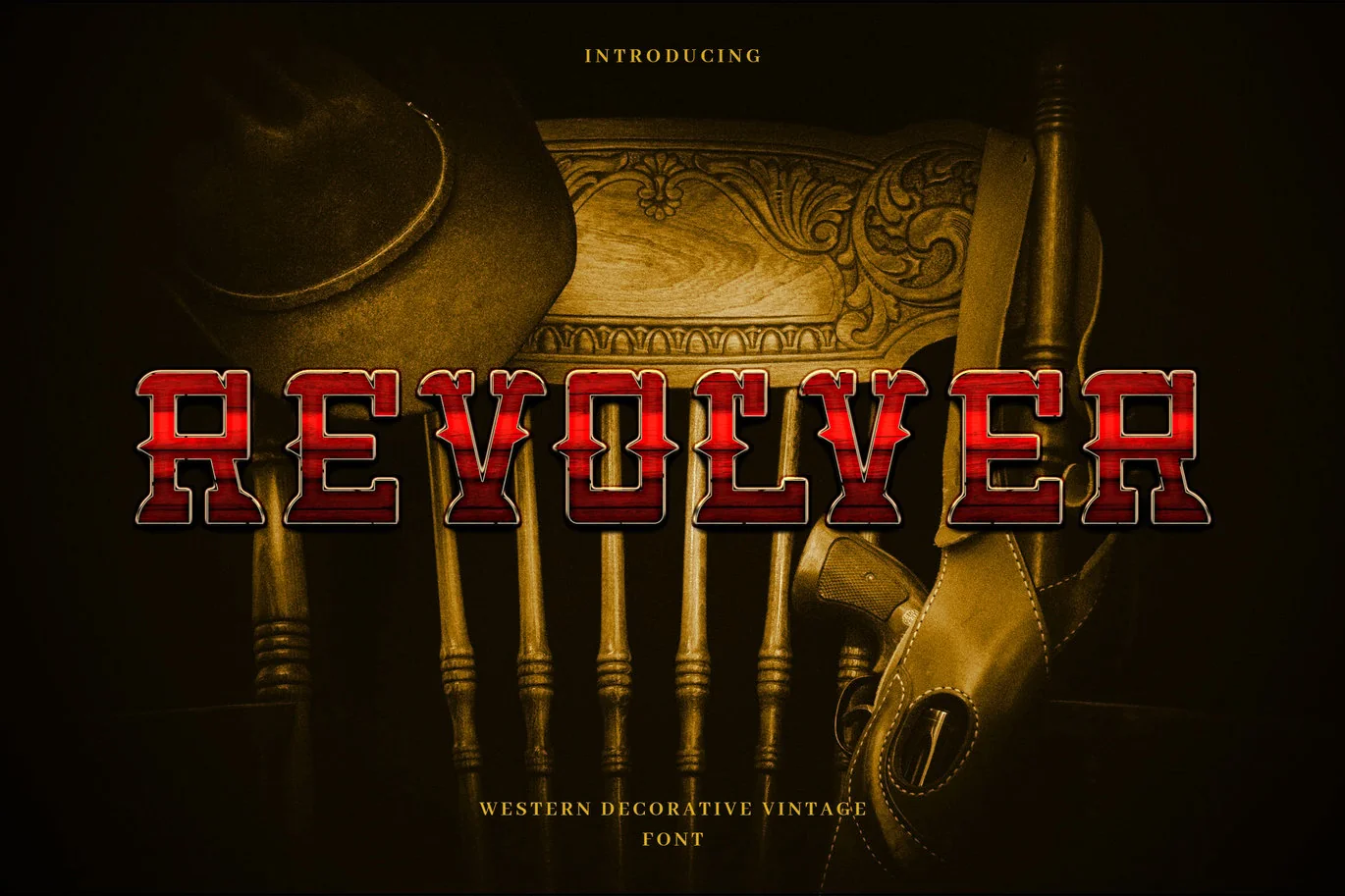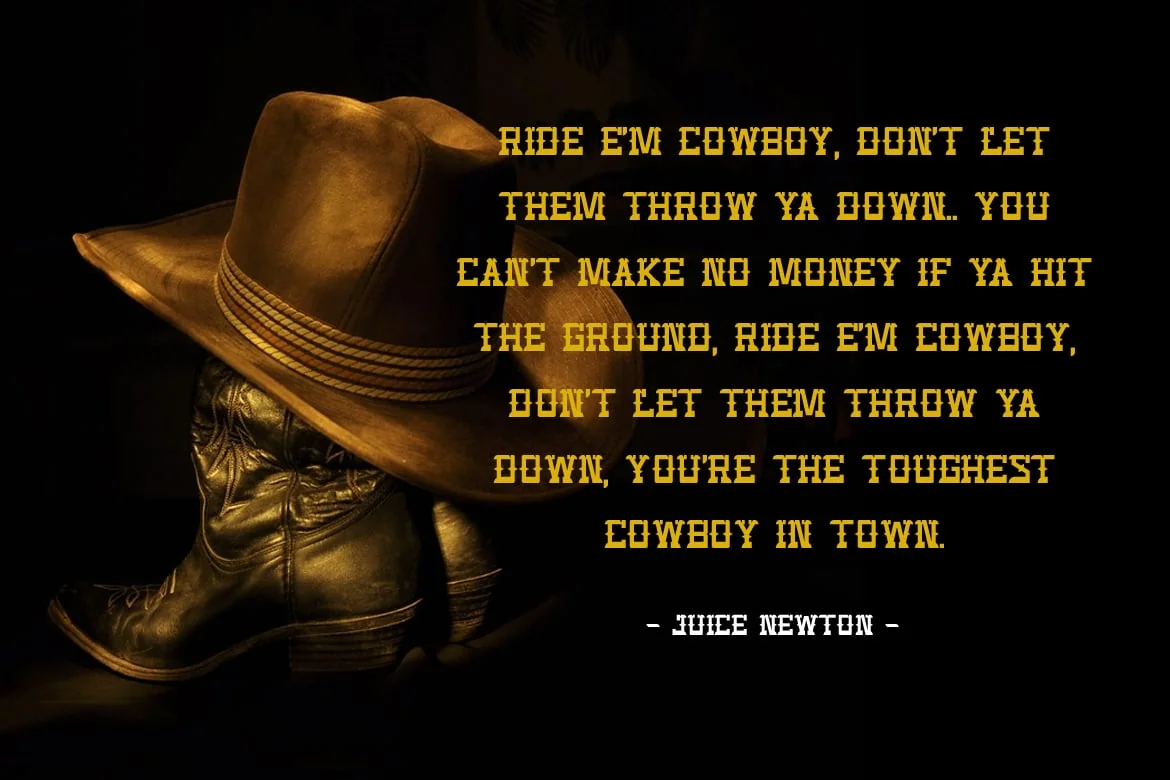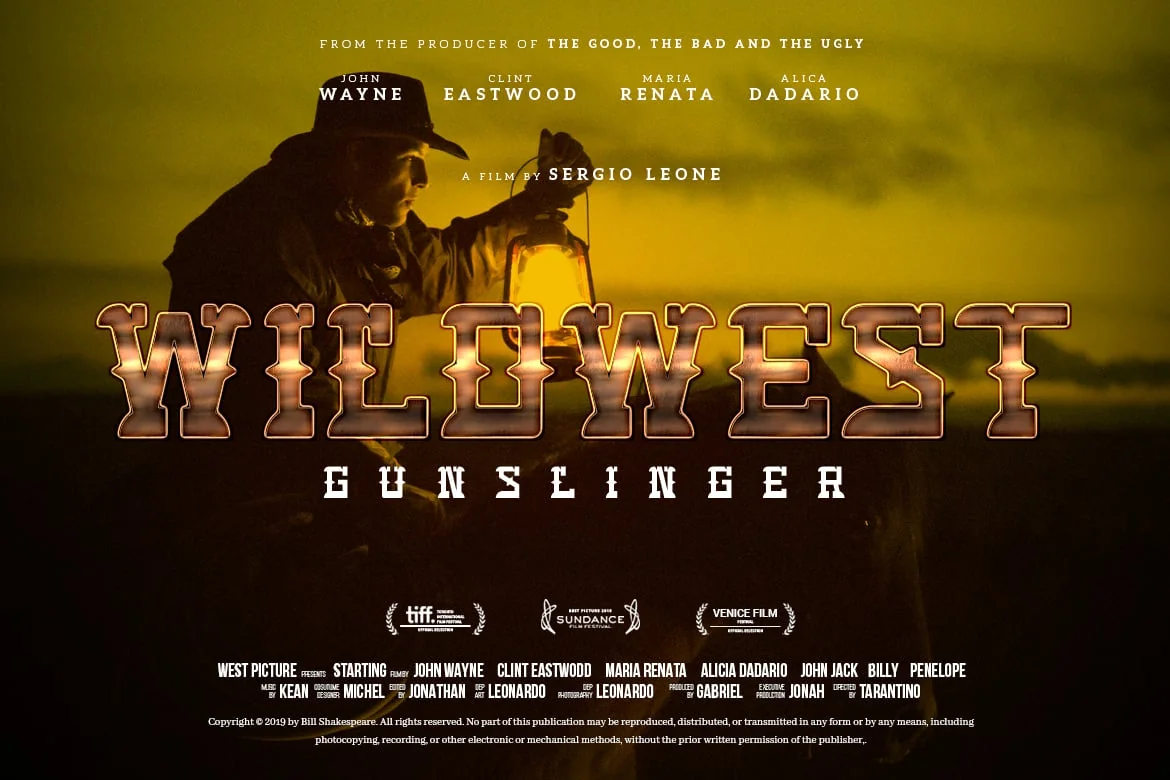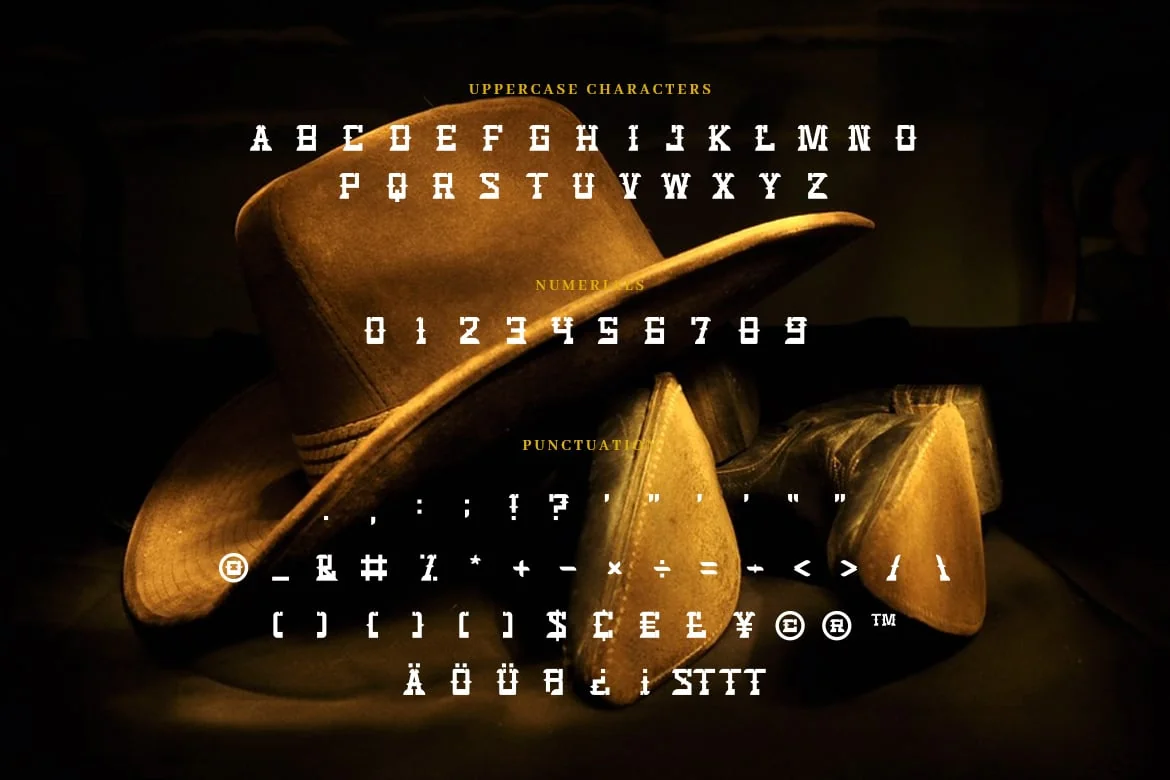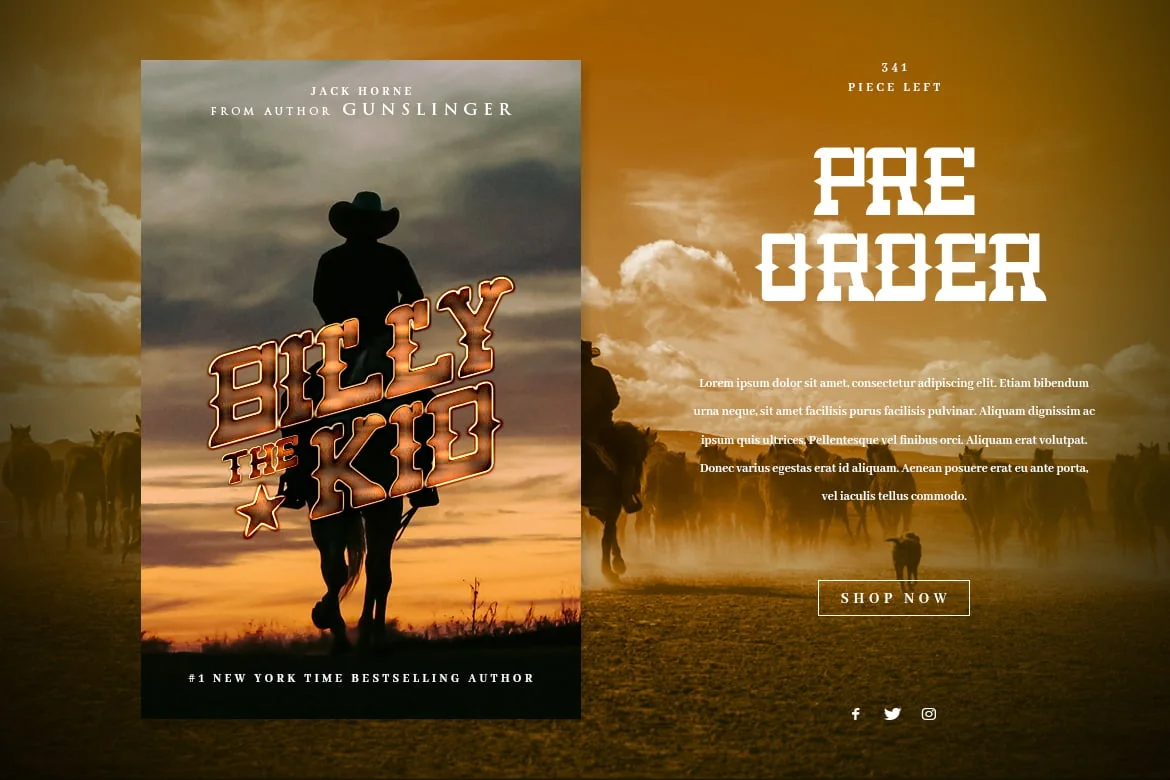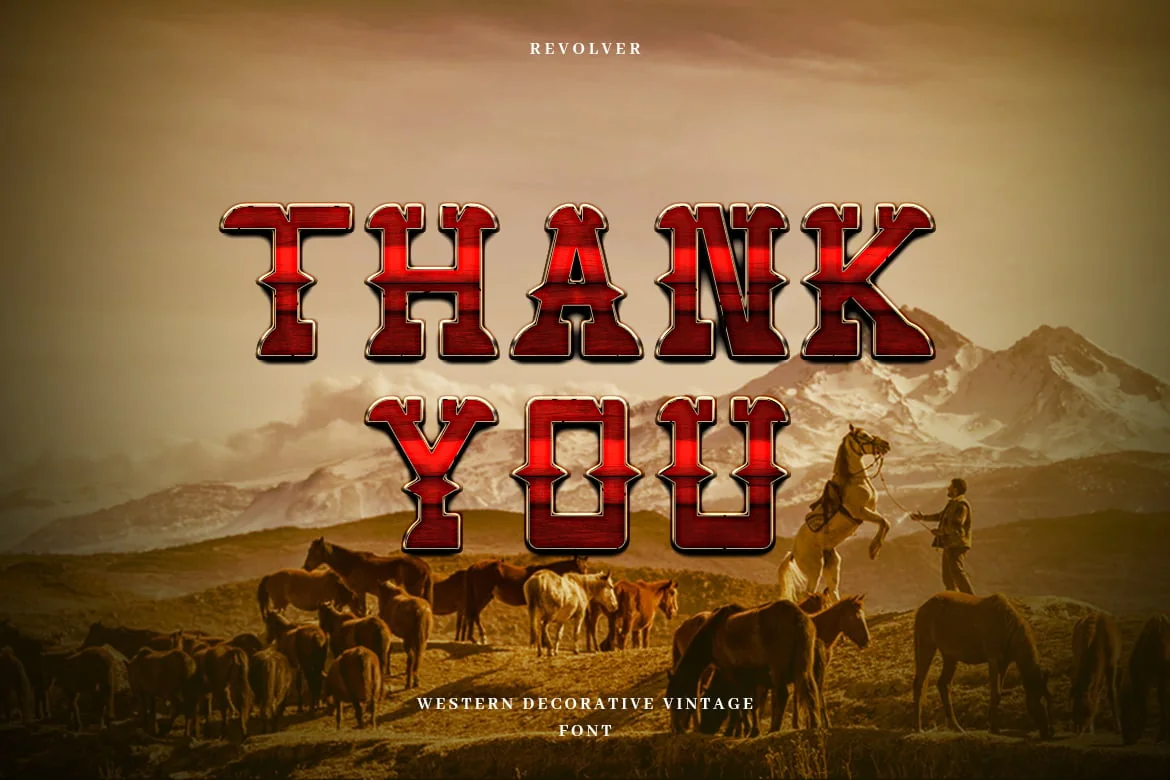
Revolver – Western Cowboy Typeface
Introducing Revolver font. Are you looking for a bold and solid western display font that has a vintage cowboy feeling? We can help! Try to download our Revolver font. The font is suitable to use for many occasion such as invitation, banner, movie title, brand, event, and many more π